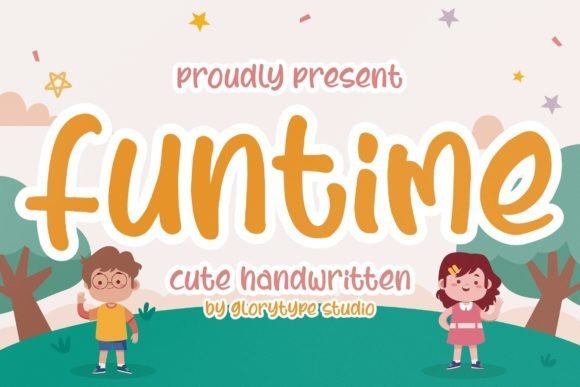
Unleash the Whimsy with Funtime Font
Have you ever stumbled upon a project that sparks your creativity, and suddenly you’re flooded with ideas and possibilities? For designers, this feeling is all too familiar. It’s the moment when you know you’ve got to bring your vision to life, and that’s exactly where the Funtime Font comes in – a delightful, handwritten font that’s perfect for any project that needs a touch of whimsy and charm.
Whether you’re designing logos, branding materials, or creating products for special events, the Funtime Font is an invaluable asset in your design toolkit. Its playful, cursive style adds a personal touch to any project, making it an ideal choice for designers who want to stand out from the crowd and create something truly unique. With the Funtime Font, the possibilities are endless, and the results are sure to delight.
Funtime Font Key Features
- Font Family: Funtime Font is a sans-serif font family designed for digital use.
- Unique Characteristics: Funtime Font features a unique blend of modern and playful design elements, making it suitable for use in digital products, branding, and advertising.
Funtime Font Review
Overall, I found the “Funtime Font” to be a visually appealing option for designers, but it has some limitations that might not make it the perfect choice for every project.
- Unique aesthetic: The font has a distinct, playful feel that can add a lot of character to a design.
- Good for headings: The font is bold and attention-grabbing, making it perfect for headings and titles.
- Works well in digital: The font renders well on screens and is suitable for digital applications.
- Limited versatility: The font’s playful style might not be suitable for more formal or professional projects.
- Not ideal for body text: The font can be difficult to read in large blocks of text, making it better suited for short quotes or headings.
- Not a great choice for print: The font’s digital optimization might not translate well to print, resulting in poor readability.
The “Funtime Font” is a fun and eye-catching option that’s perfect for designers looking to add some personality to their projects. However, it’s not a one-size-fits-all solution, and designers should carefully consider the project’s requirements before choosing this font.
Funtime Font is ideal for creating playful and eye-catching designs, such as:
– Infographics
– Party invitations
– Children’s book illustrations